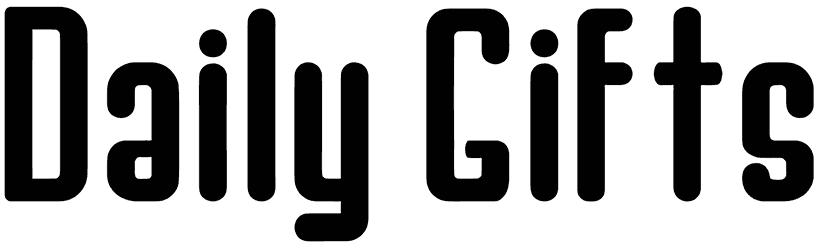
Daily Gifts Font
If you’re always designing logos and yet you still don’t have Daily Gifts in your collection, you’re at a huge loss. It’s not just a simple sans-serif font like any other. For one thing, it’s available in several styles…
If you’re always designing logos and yet you still don’t have Daily Gifts in your collection, you’re at a huge loss. It’s not just a simple sans-serif font like any other. For one thing, it’s available in several styles so that you can pick your favorite at any time.
On top of that, it’s designed as a tall font with obvious playfulness, so you can appeal to anyone, making it perfect for your clothes tags, dairy product labeling, etc.